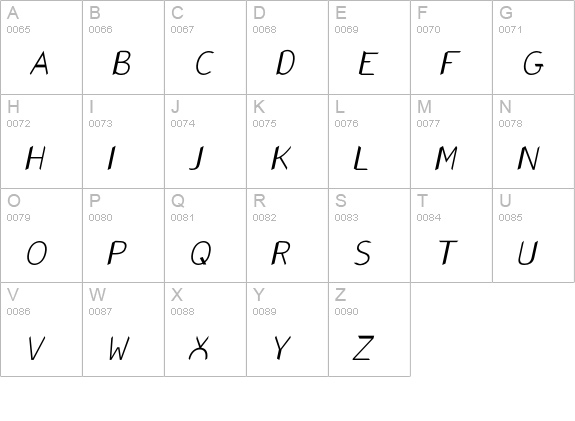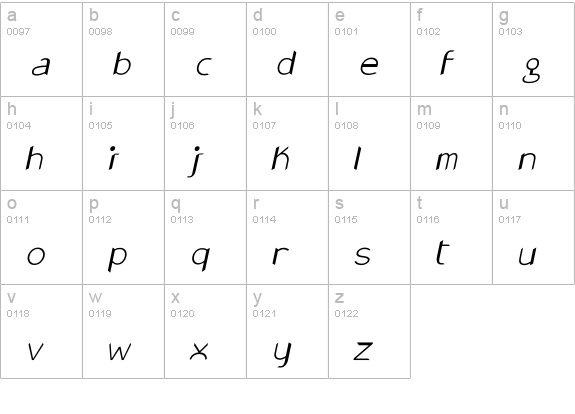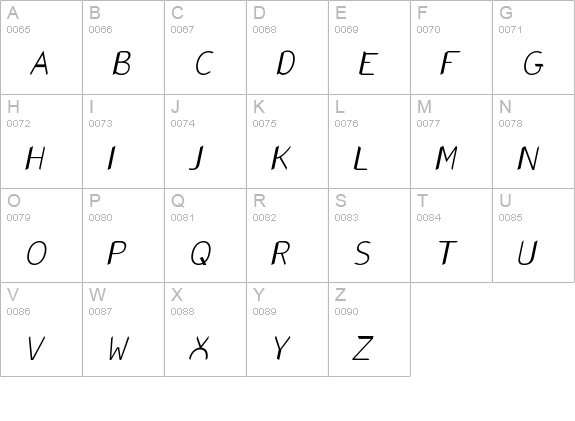
Gonza-Oblique is a distinctive, italic variant in the Gonza typeface family \xE2\x80\x94 well suited to design and typography projects.
Gonza-Oblique font is a unique and stylish typeface that exudes modernity and sophistication. Its slanted design adds a touch of elegance to any project, making it perfect for logos, branding, headlines, and more. The sleek lines and sharp angles of Gonza-Oblique create a dynamic and eye-catching look that is sure to make your designs stand out. What's even better is that Gonza-Oblique font is available for free download at FontsMarket.com. This means you can easily access this stunning typeface and use it in your projects without any cost. Whether you're a professional designer or a hobbyist looking to enhance your creations, Gonza-Oblique is the perfect choice for adding a touch of modern flair to your work. Download it today and elevate your designs with this sleek and stylish font.